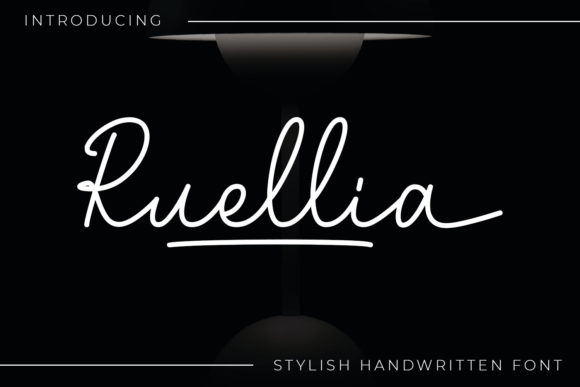
Journey into the world of elegance and sophistication with Ruellia, an exquisite script font born from the creative genius of Mytype Studio. Its flowing lines, reminiscent of a gentle breeze, dance across the page, adding a touch of grace to every word. Ruellia's inherent charm lies in its ability to transform ordinary text into a captivating visual masterpiece.
Unleash your creativity and let Ruellia's elegant curves guide you in creating stunning logos, branding designs, and invitations that leave a lasting impression. Its modern flair makes it ideal for social media posts, adding a touch of sophistication to your online presence. With Ruellia, your designs will radiate an aura of refinement and timeless beauty.
Visualize your wedding invitations adorned with Ruellia's delicate strokes. Your guests will be mesmerized by the intricate details and the romantic ambiance it exudes. Let Ruellia tell your love story in a way that words alone cannot express.
For those seeking a font that reflects their individuality, Ruellia offers a unique charm. Its versatility allows you to create personalized monograms, adding a touch of exclusivity to your stationery or personal belongings. Embrace the art of self-expression and let Ruellia's elegant curves reflect your unique personality.
With Ruellia, the possibilities are endless. Its versatility extends to branding designs, allowing you to create a cohesive visual identity that speaks volumes about your brand's essence. Elevate your marketing materials, website, and social media presence with Ruellia's timeless appeal.
Immerse yourself in the world of beauty and elegance with Ruellia. Its ability to transform words into art makes it an essential tool for designers, crafters, and anyone seeking to add a touch of sophistication to their creative projects. Let Ruellia be your muse and embark on a journey of visual excellence.